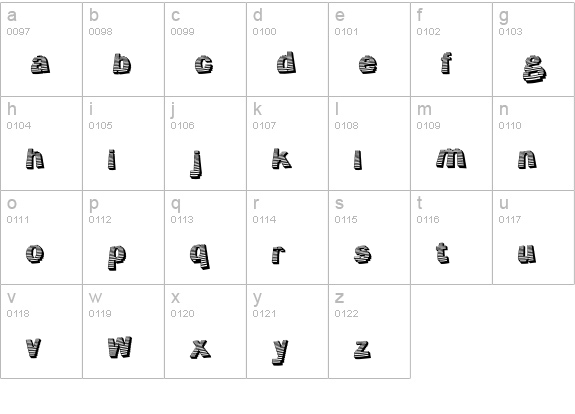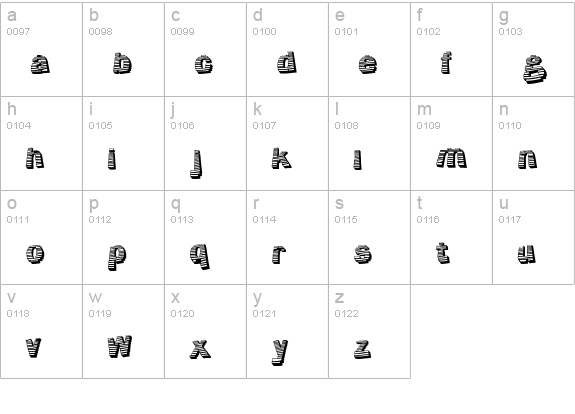
Jerrybuilt Font Details
Jerrybuilt font is a whimsical and playful typeface that exudes a sense of creativity and fun. Its quirky design features irregular strokes and charming imperfections that give each letter a unique character. The font is perfect for adding a touch of personality to your projects, whether it be for branding, invitations, posters, or social media graphics. Best of all, Jerrybuilt font is available for free download at FontsMarket.com, making it easily accessible for designers and creatives looking to add a touch of whimsy to their work. Embrace the whimsical charm of Jerrybuilt font and let your imagination run wild with its playful design elements.